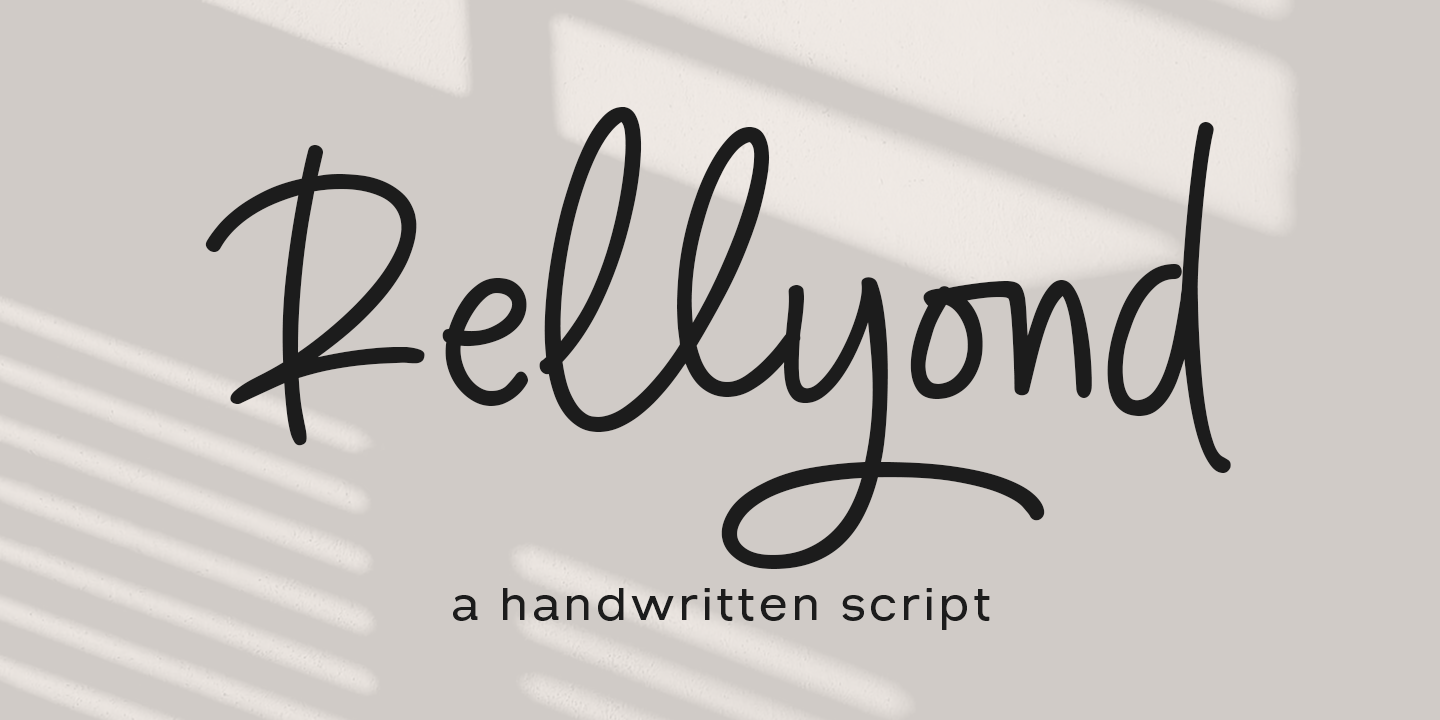
Rellyond
Rellyond is a brush script font family published by Gatype.
Rellyond is a Handwritten script font characterized by a single-line stroke with consistent thickness throughout. It offers an elegant, modern, and relaxed feel, making it a great choice for various design projects such as branding, logos, invitations, packaging, and social media.